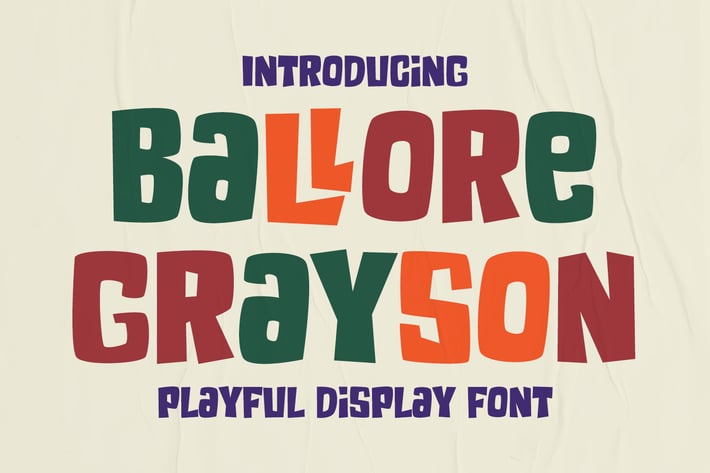
Ballore Grayson - Fun Display Font
Ballore Grayson is a playful and fun handwritten display font. This enchanting font will turn any creative idea into a true standout.
Ballore Grayson would be perfect for logos & branding, photography, watermark, social media posts, advertisements, invitation, product designs, label, stationery, wedding designs, product packaging, special events or anything that need handwriting taste.